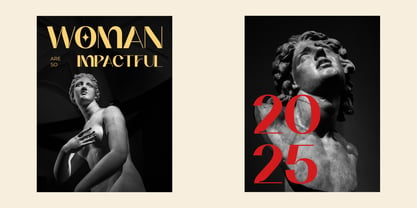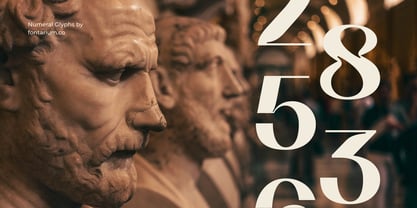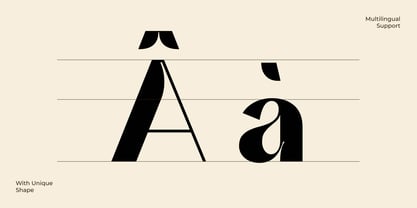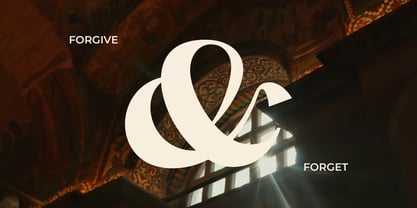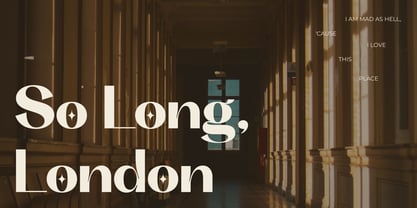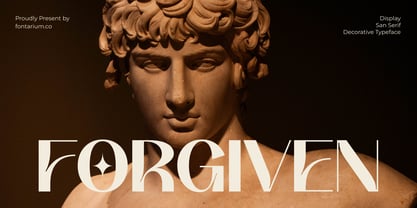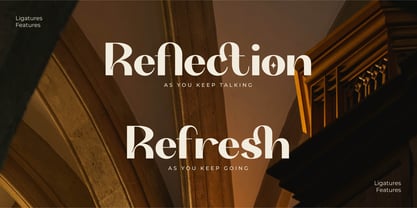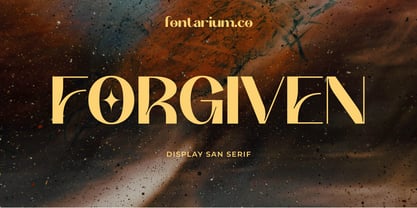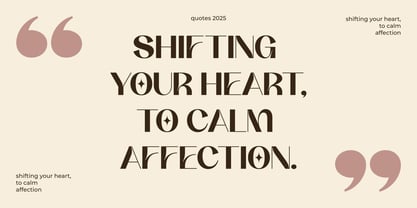
FM Forgiven
by Fontarium
The FM Forgiven Font Family was designed by Abiell Thalita and published by Fontarium. FM Forgiven contains 1 styles. More about this family
Forgiven is a modern serif typeface inspired by the elegance of art deco and refined geometric forms. It features stylish curves, sharp contrasts, and unique letter alternates that create a bold yet graceful impression. Ideal for luxury branding, fashion editorials, invitations, packaging, and statement headlines, Forgiven brings timeless sophistication and artistic flair to every creative project.
Designers: Abiell Thalita
Foundry: Fontarium